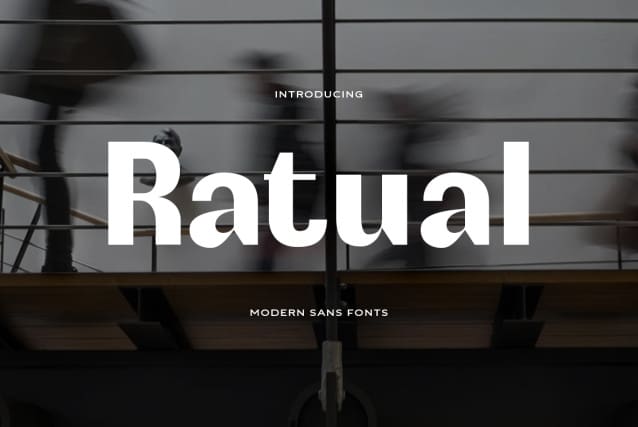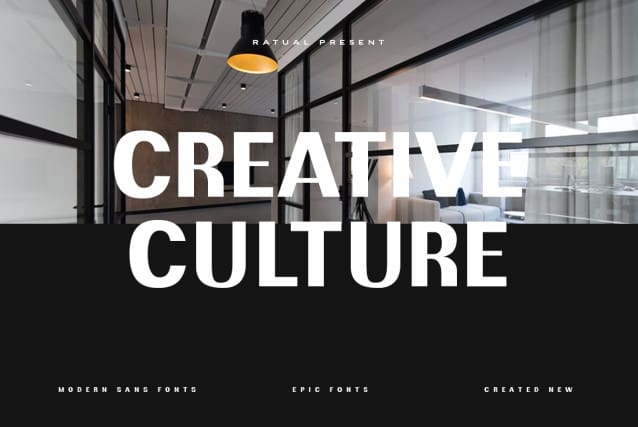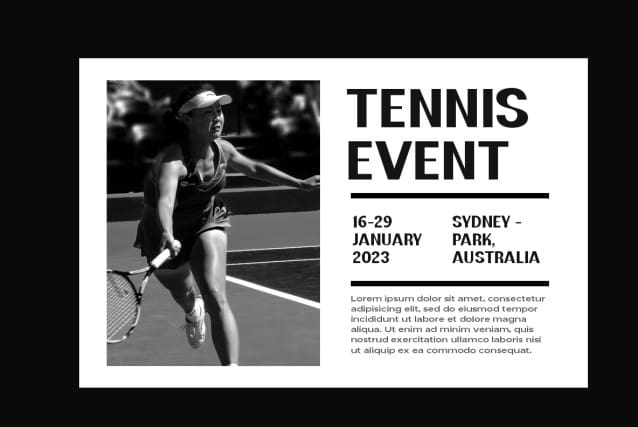
Ratual Sans Font
Ratual Sans Font is a modern sans serif font suitable for a variety of design projects, including Logo, Branding, Advertising, Editorials, and more. With its minimalist and elegant characteristics, this font can give any design a professional and modern look.
If you’re looking for a high-quality, easy-to-use modern sans serif font, Ratual Sans Modern can be the right choice. Give this font a try and see how it can enhance the look of your designs.